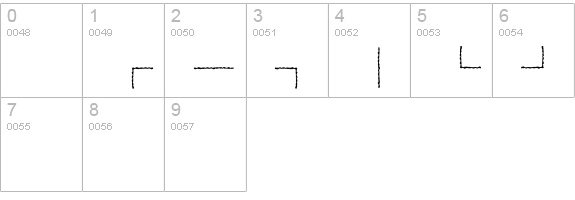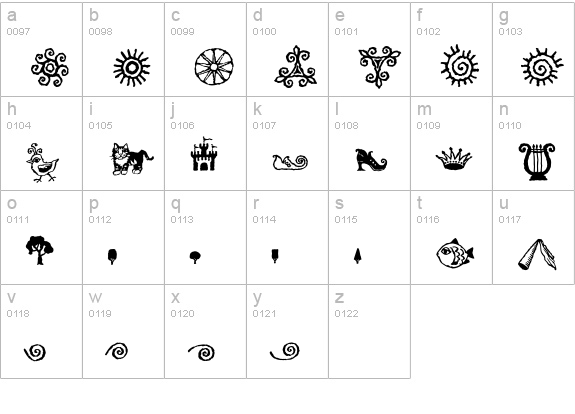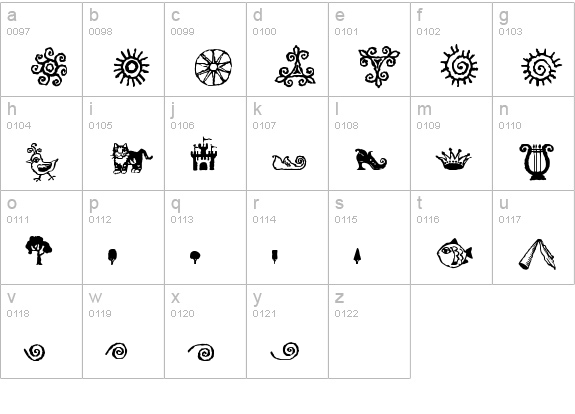
Greymantle MVB Ornaments Font Details
Greymantle MVB Ornaments font is a stunning collection of intricate, decorative ornaments that will add a touch of elegance and sophistication to your design projects. This font features a variety of ornate designs, from floral patterns to geometric shapes, making it the perfect choice for adding a unique flair to invitations, posters, and other creative works. The Greymantle MVB Ornaments font is not only visually striking, but it is also incredibly versatile, allowing you to mix and match different elements to create custom designs that suit your needs. Whether you're looking to add a touch of vintage charm or a modern twist to your projects, this font has you covered. Best of all, Greymantle MVB Ornaments font is available for free download at FontsMarket.com, making it accessible to designers of all skill levels. Don't miss out on the opportunity to enhance your creative projects with this beautiful and versatile font. Download Greymantle MVB Ornaments font today and let your creativity shine!